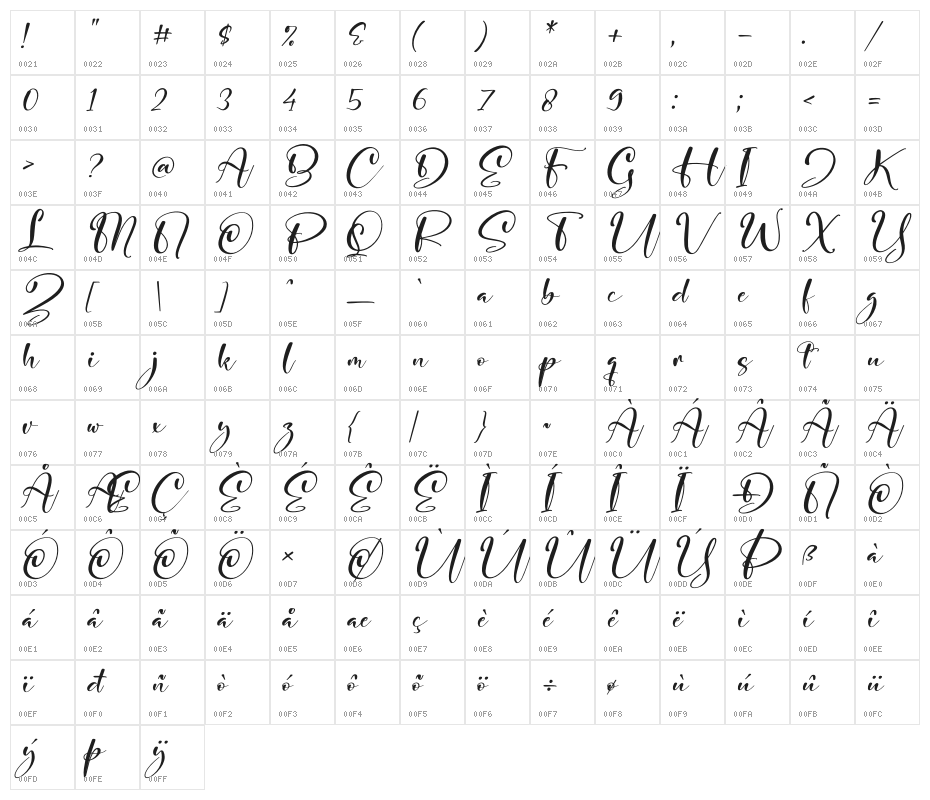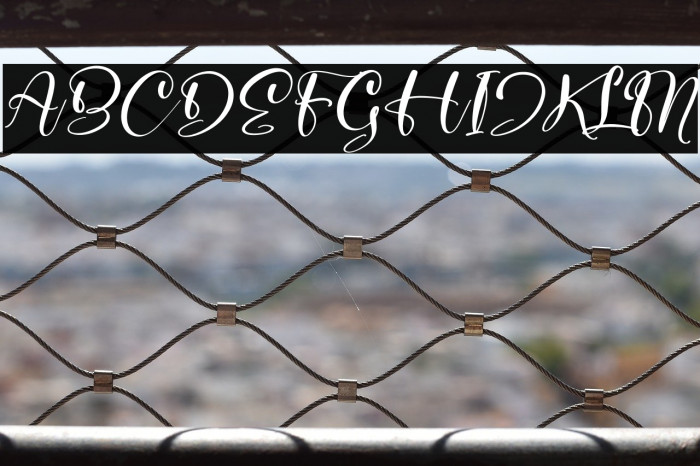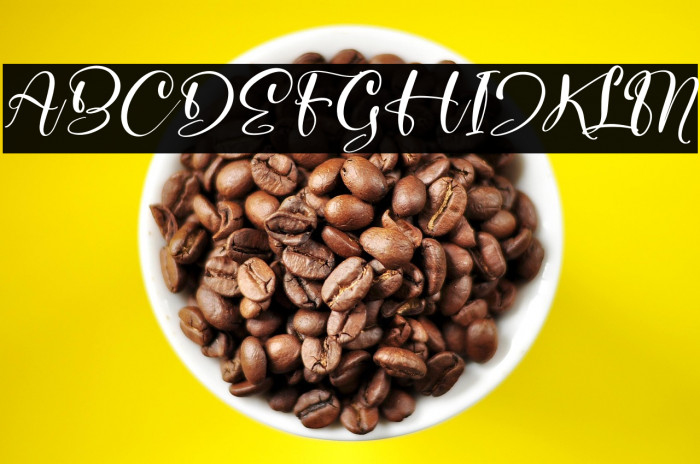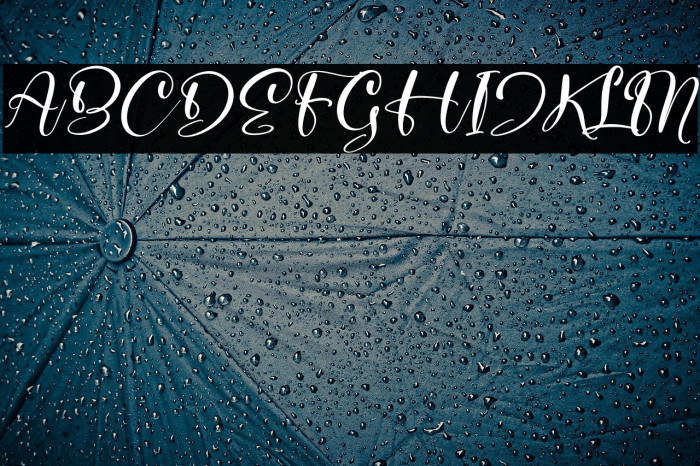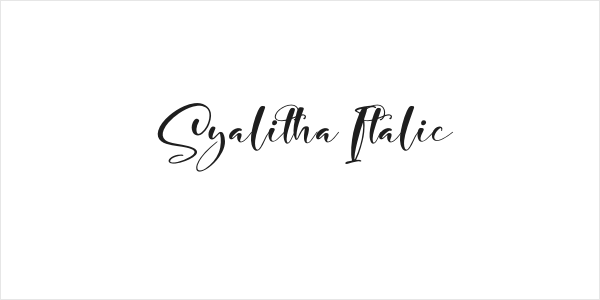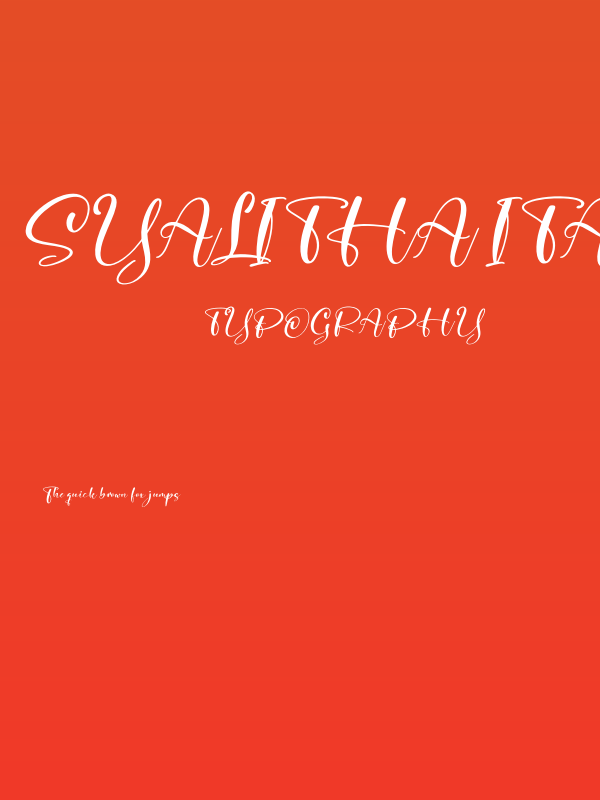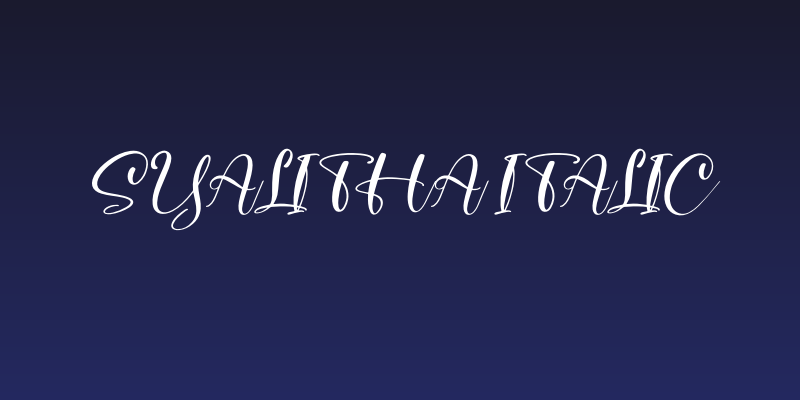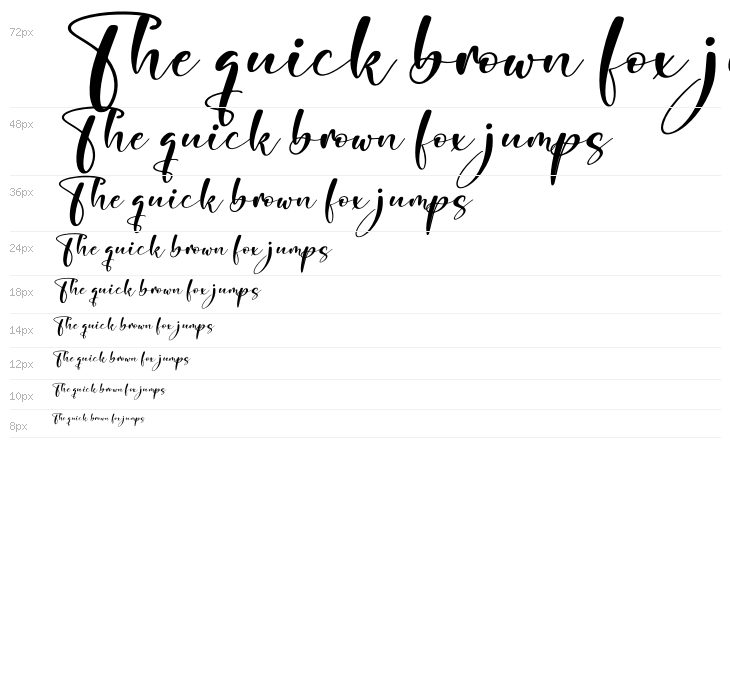
Syalitha Italic Font
Syalitha Italic Description
This font features an elegant and flowing script style, characterized by its smooth, cursive strokes and graceful curves. The uppercase letters exhibit a sophisticated flair with extended loops and swashes, while the lowercase letters maintain a consistent fluidity, enhancing readability. The numerals are designed with a similar cursive touch, ensuring a cohesive look across all characters. Special characters are thoughtfully integrated, maintaining the font's overall aesthetic. This font exudes a sense of elegance and charm, making it suitable for formal and decorative applications.
| Overall Style | Elegant, Decorative |
| Proposed Projects | Ideal for wedding invitations, greeting cards, branding projects, and elegant packaging designs. |